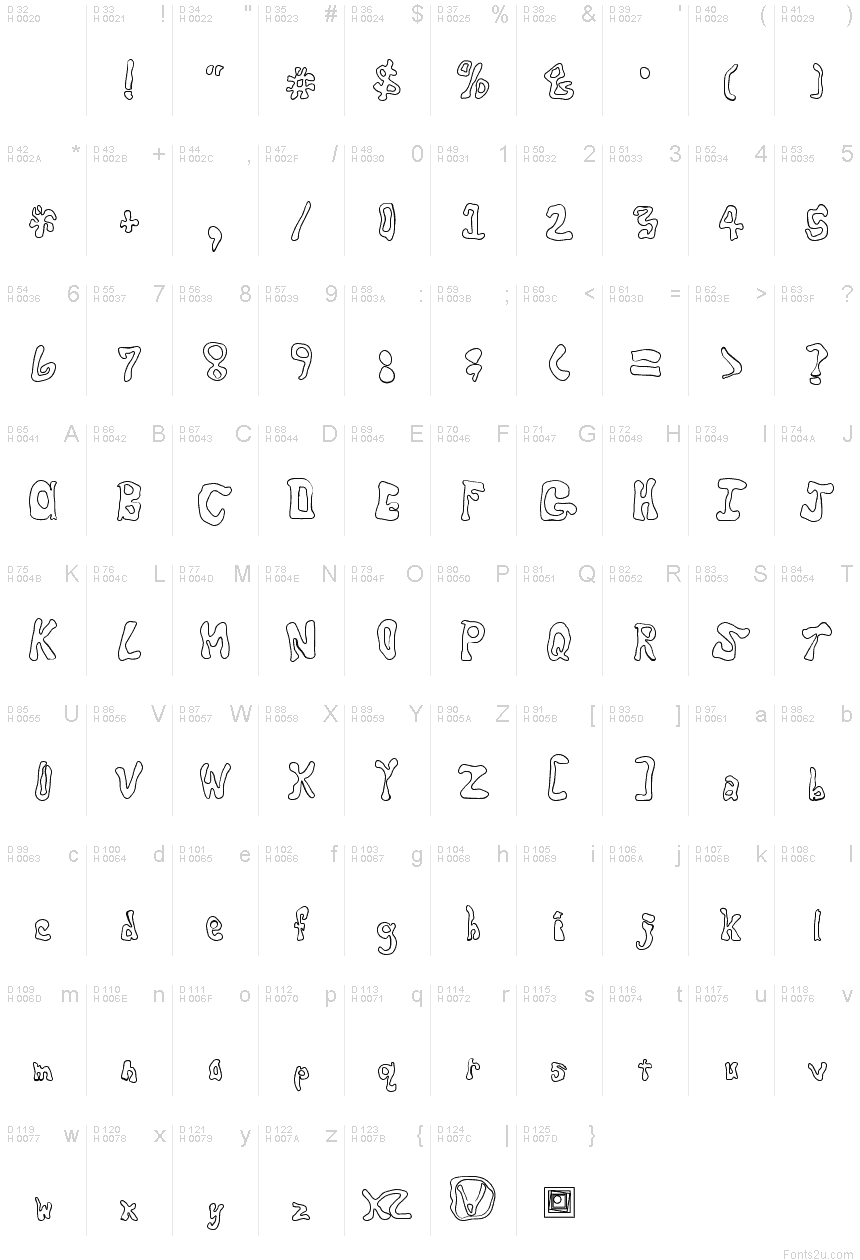
CritterIsRad
Critter Is Rad font by TeA Calcium is a free outlined display font that looks like it’s been drawn in wobbly ink and left to melt. Each letter swells and squiggles like a blobby critter, with irregular contours that feel hand‑scrawled and slightly mischievous. The hollow interiors invite color, gradients, or textures, so the typeface turns into a playground for posters and graphics that need loud, oozy personality.
Using Critter Is Rad, you can dial up the weird for gig flyers, zines, spooky‑cute Halloween graphics, slime‑themed kids’ party invites, skate or streetwear logos, sticker sheets, and indie game titles. This free font shines when it’s set large and bold, letting every strange contour show; pair it with a plain geometric sans serif for body text so the wild outlines stay front and center.